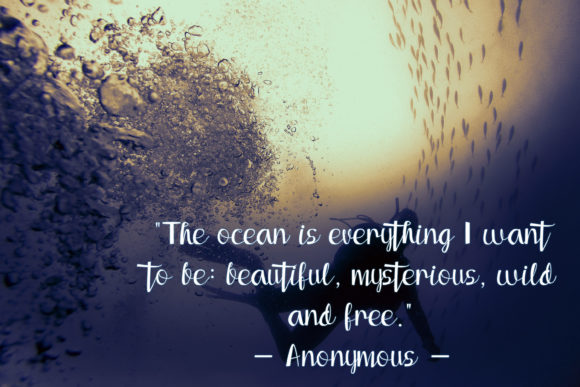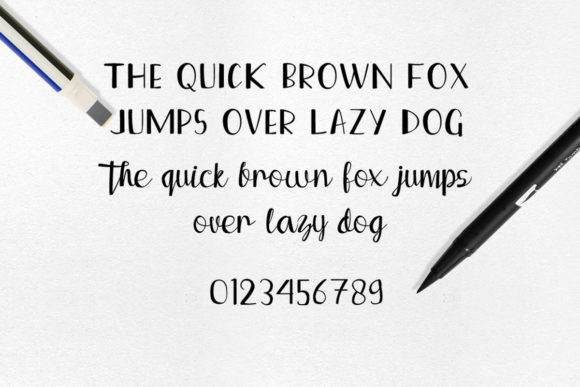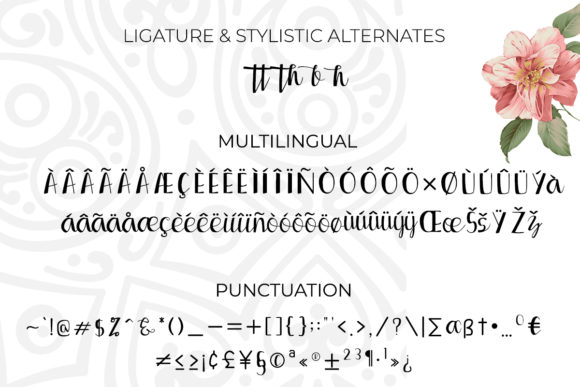
HomeScript FontsSouth Bali Font Script Fonts South Bali Font FacebookXPinterestWhatsApp Processed with VSCO with a5 preset South Bali Font Poster 2 South Bali Font Poster 3 South Bali Font Poster 4 South Bali Font Poster 5 About South Bali Font South Bali is a fun and bold handwritten font with a unique feel. Get inspired by its unique charm. DOWNLOAD ON CREATIVE FABRICAThis font is sold and delivered by Creative Fabrica. Font Canyon may earn a commission if you buy through this link. People also explored Mother Vibes Font Rhetorical Font Gingerbread Rasty King Font Adorable Font Bolder Font Phillia Font Risky Choice Font Palmegria Font 300 0 TagsSouth Bali Font Previous articleFlashback FontNext articleCalyana Font LEAVE A REPLY Cancel reply Comment: Please enter your comment! Name:* Please enter your name here Email:* You have entered an incorrect email address! Please enter your email address here Website: Save my name, email, and website in this browser for the next time I comment. Personal Use Free The Brighton Personal Use Free Read more about this font Super Caramel Font Personal Use Free Read more about this font Heart Memory Personal Use Free Read more about this font Concre Personal Use Free Read more about this font BLOG Using Fonts in Digital Marketing: Tips to Strengthen Your Brand Identity In the realm of digital marketing, every visual element plays a crucial role in shaping a brand's identity, and fonts are no exception. The... Free vs Paid Fonts: Why Investing in Premium Fonts Is Worth It Free Fonts Risk: Why Free Fonts Can Be Dangerous for Designers 5 Fonts That Will Dominate Design Trends in 2026